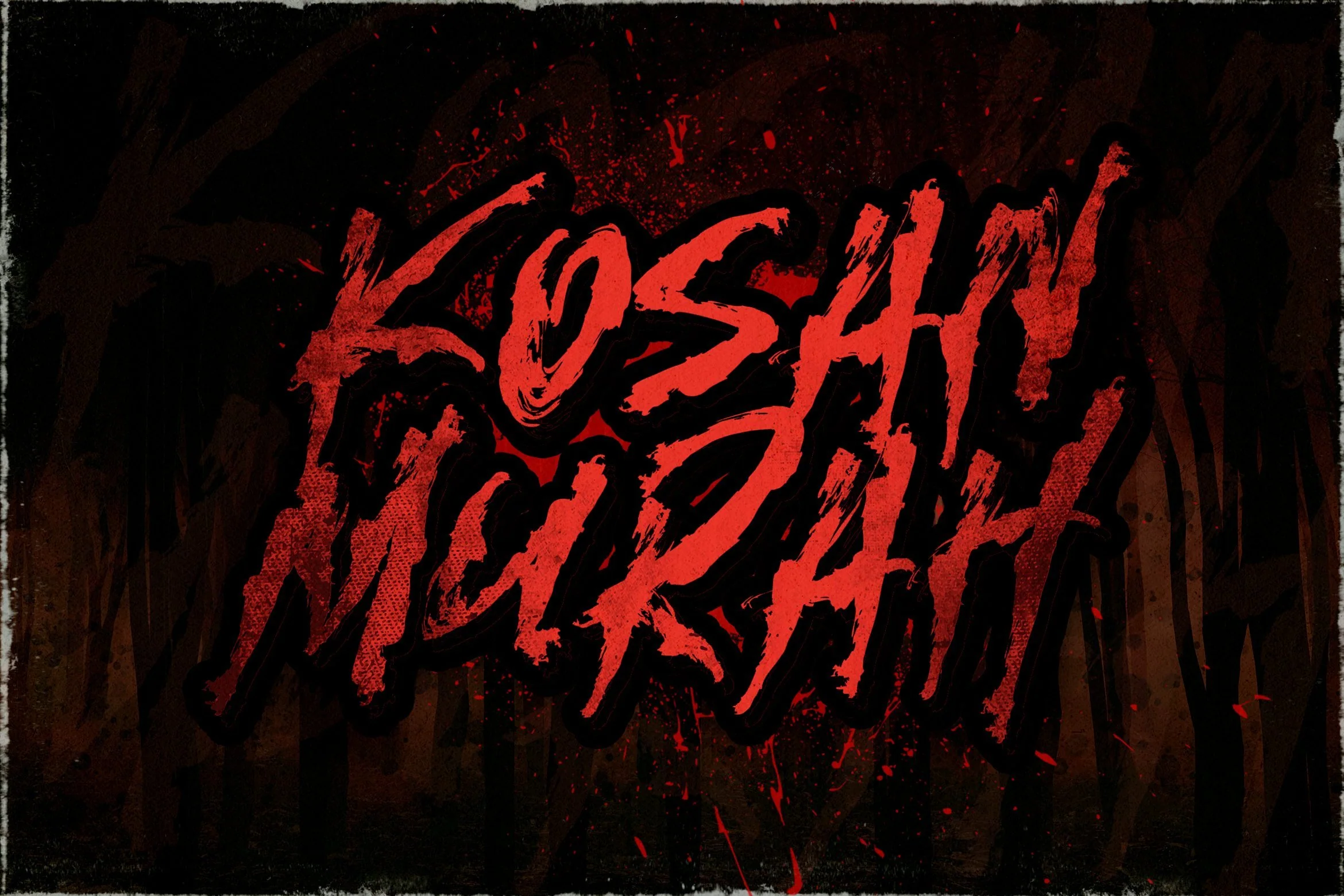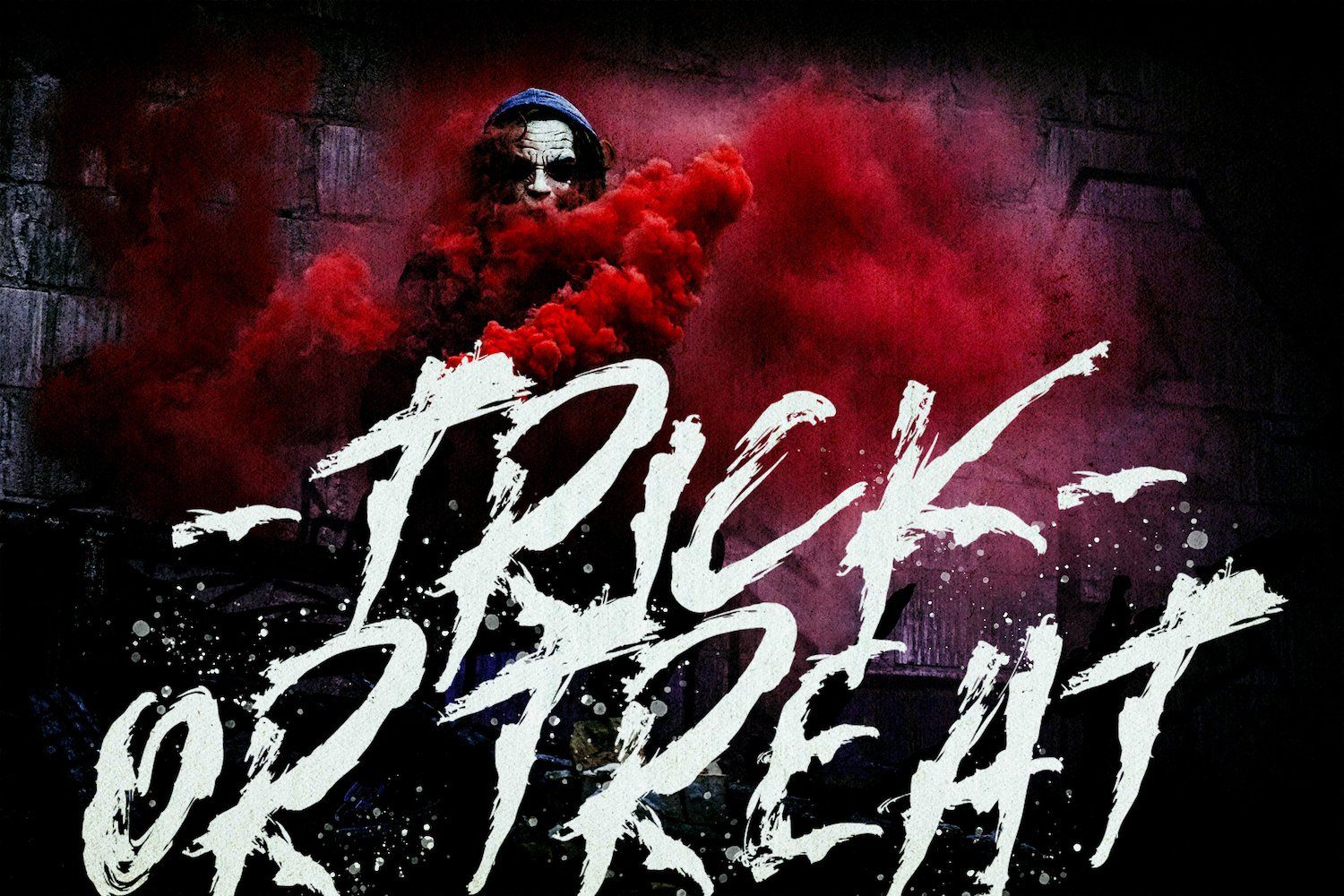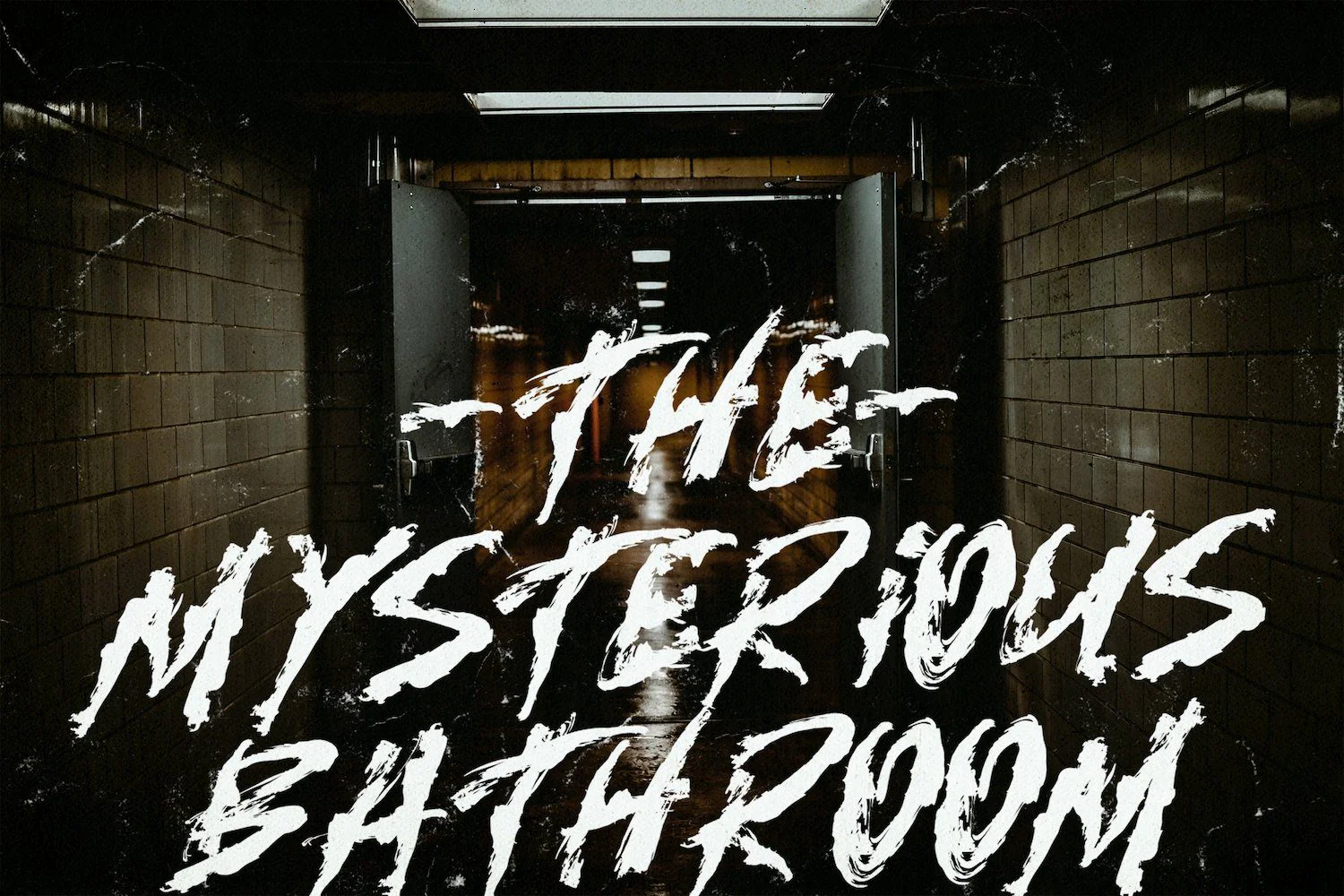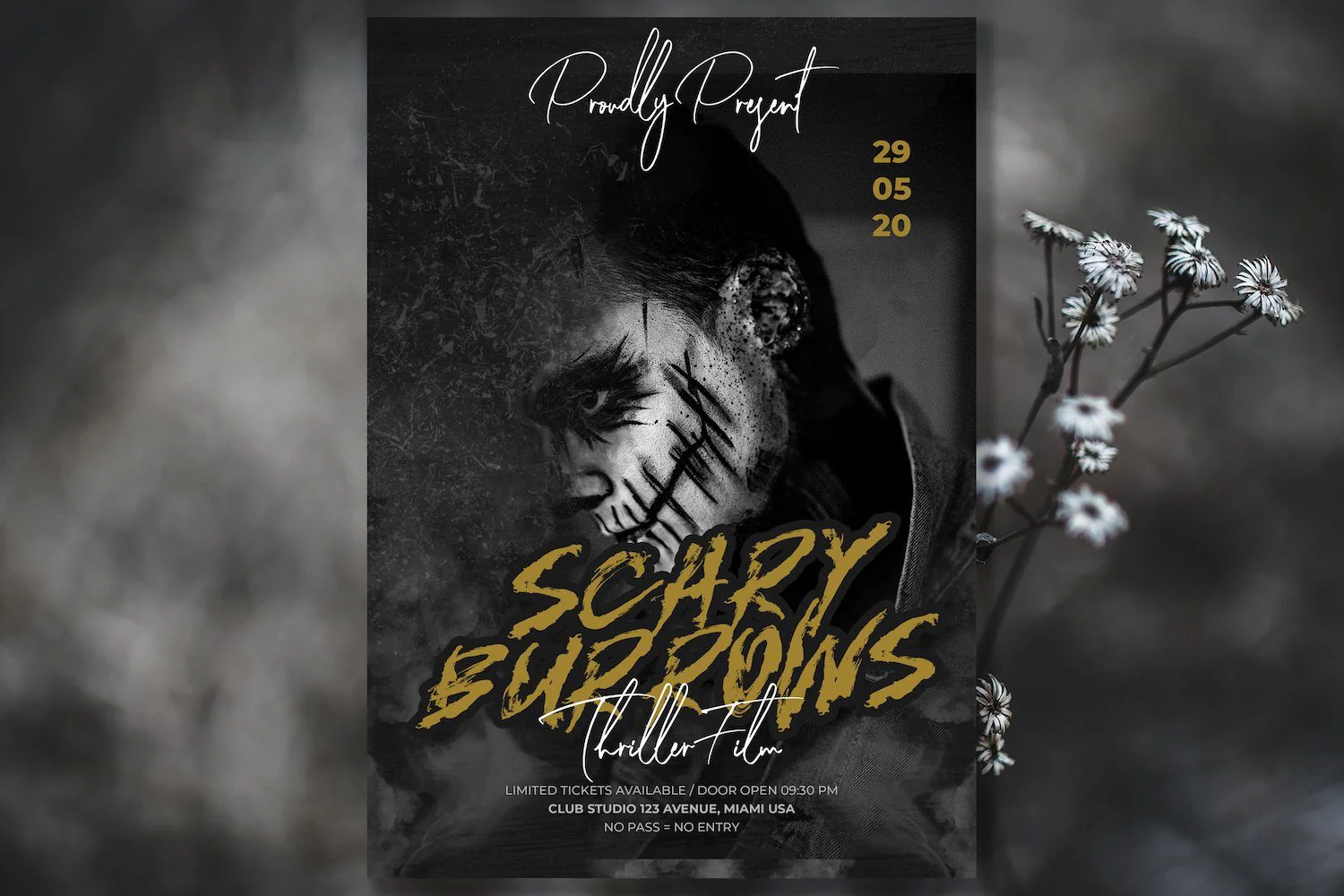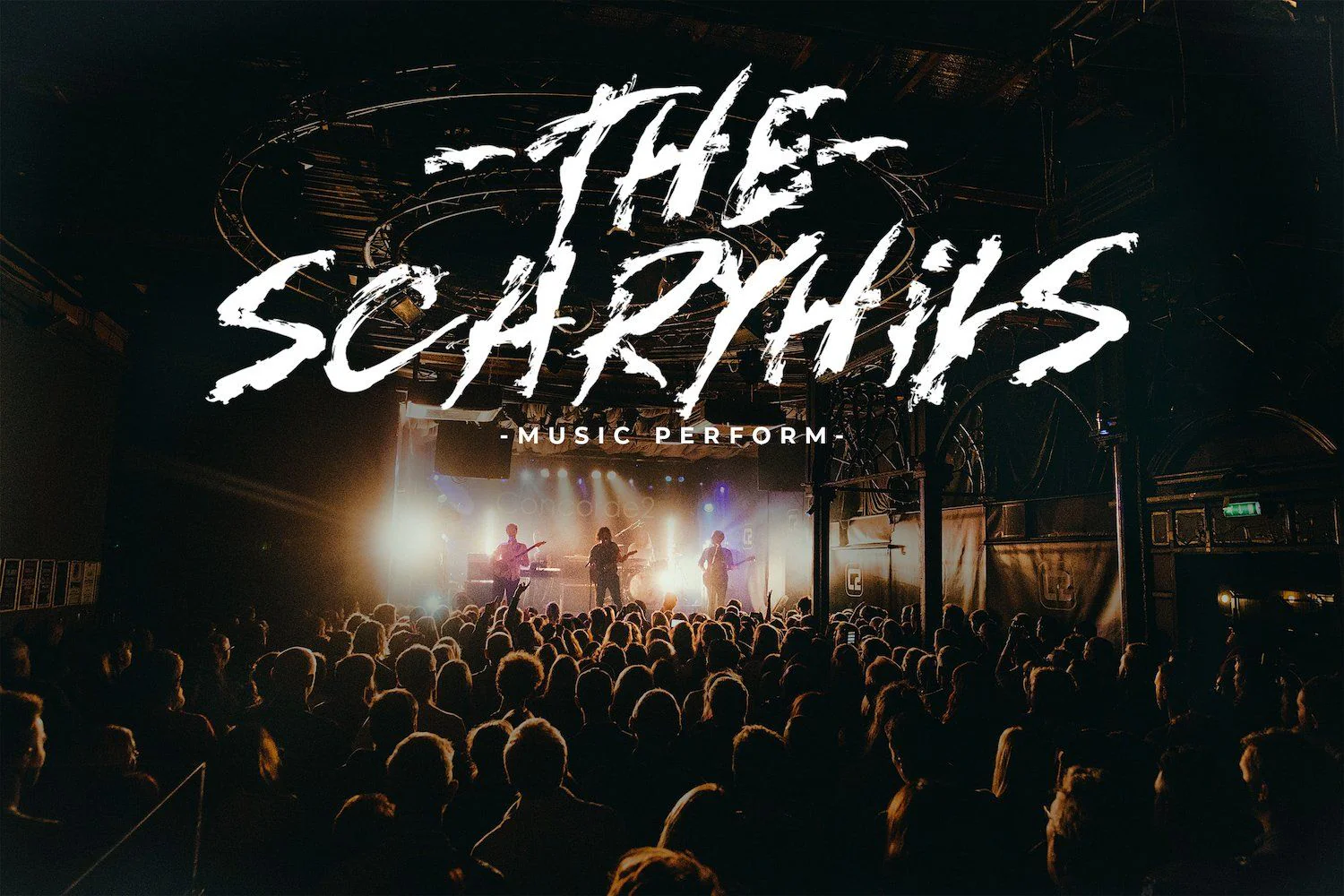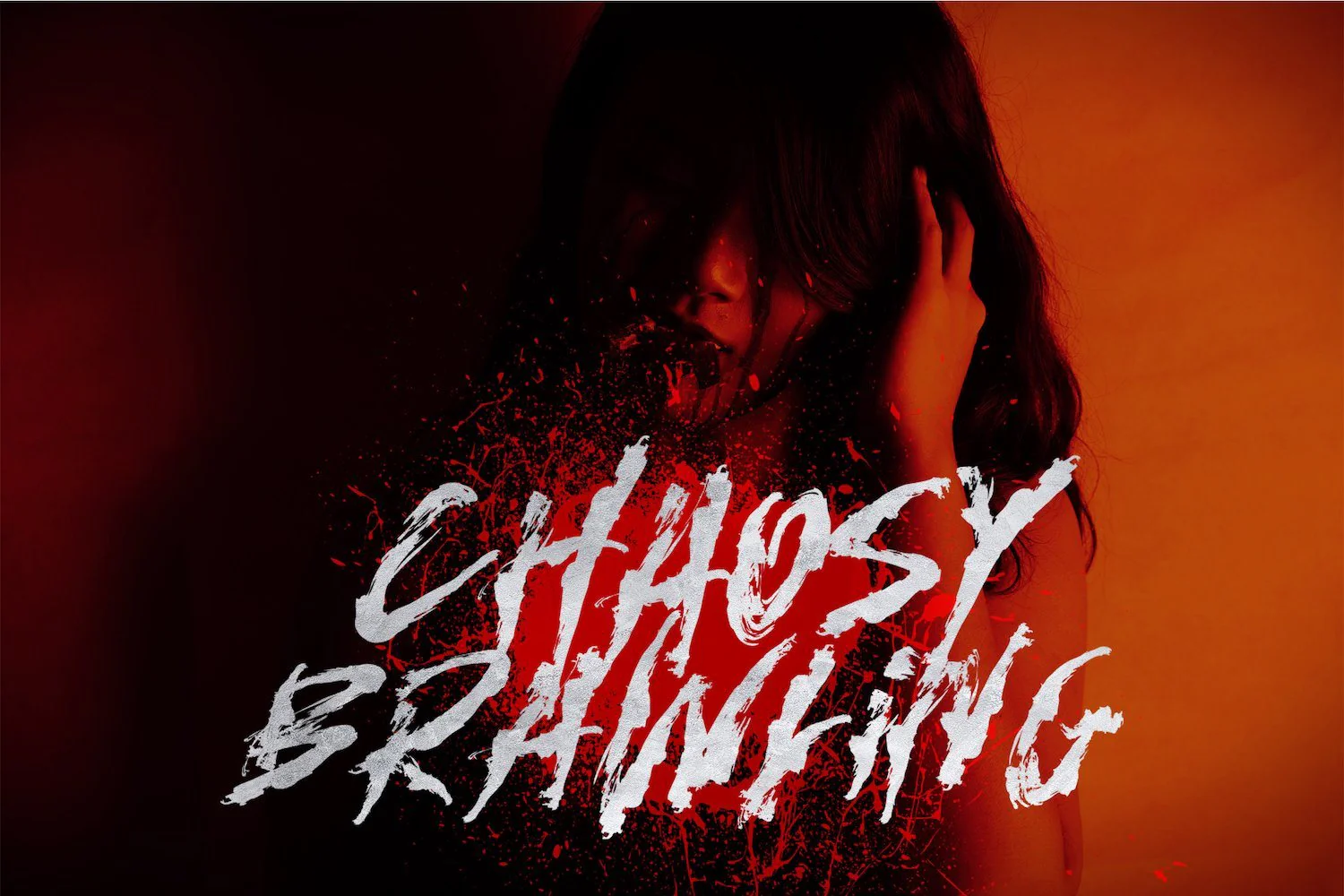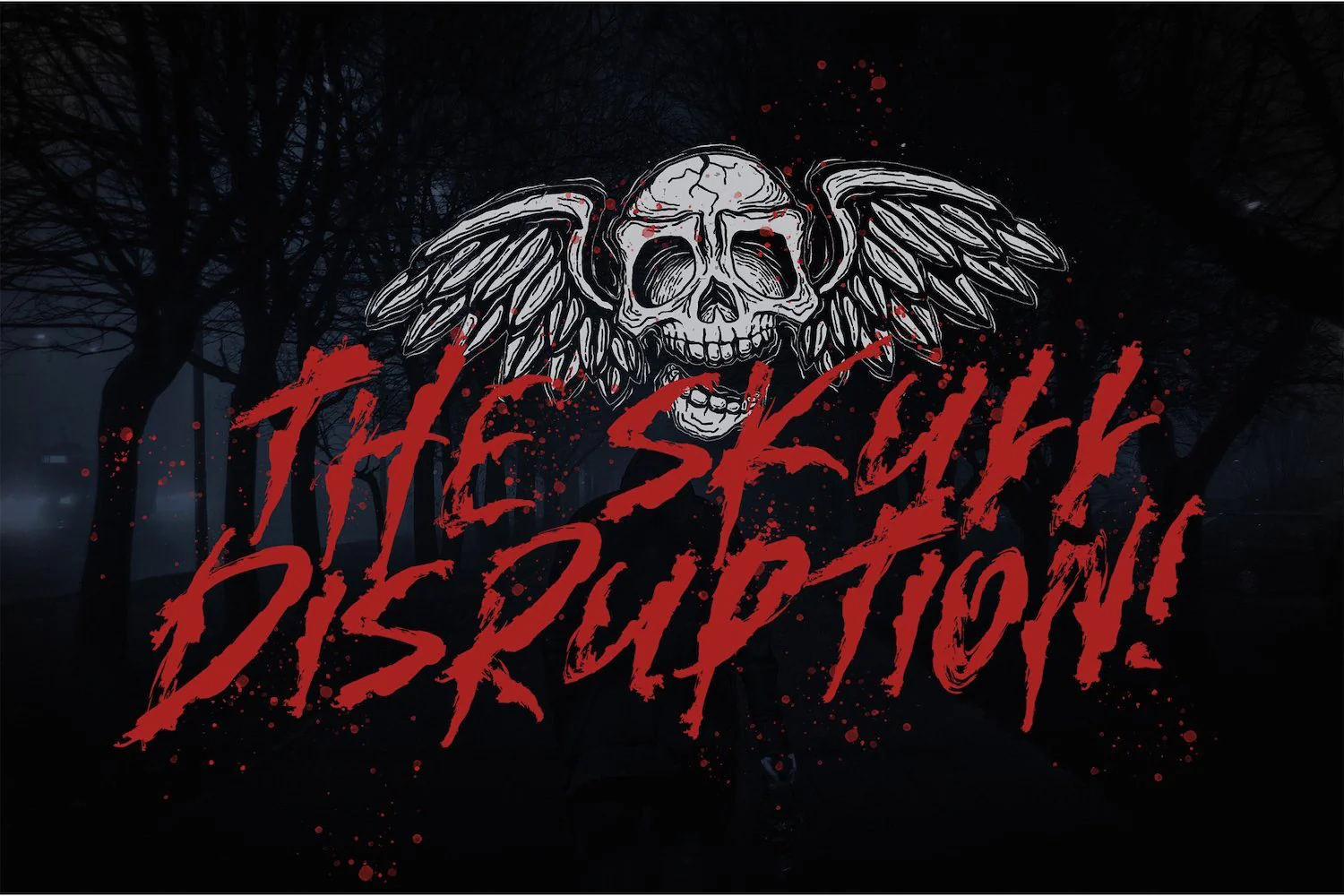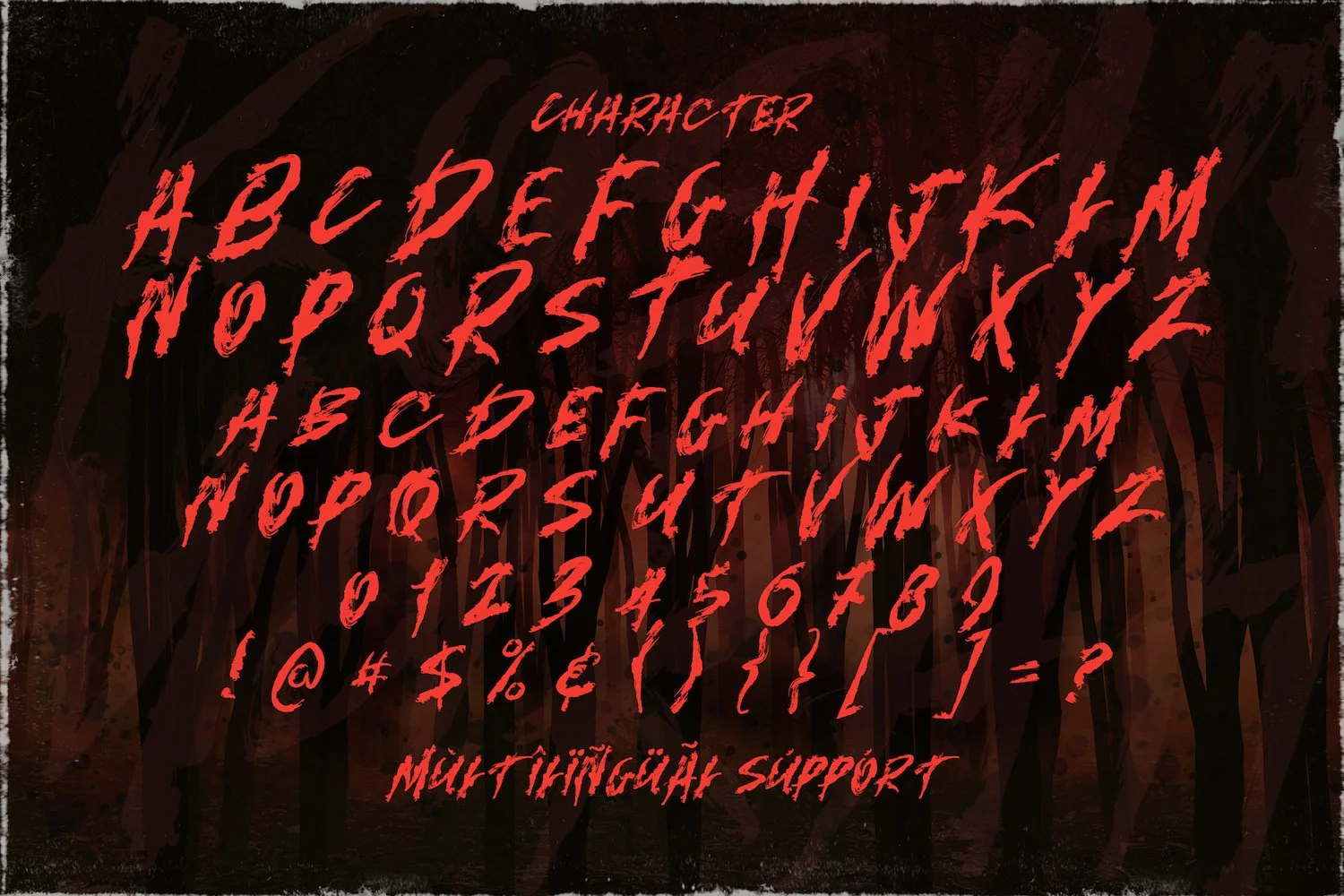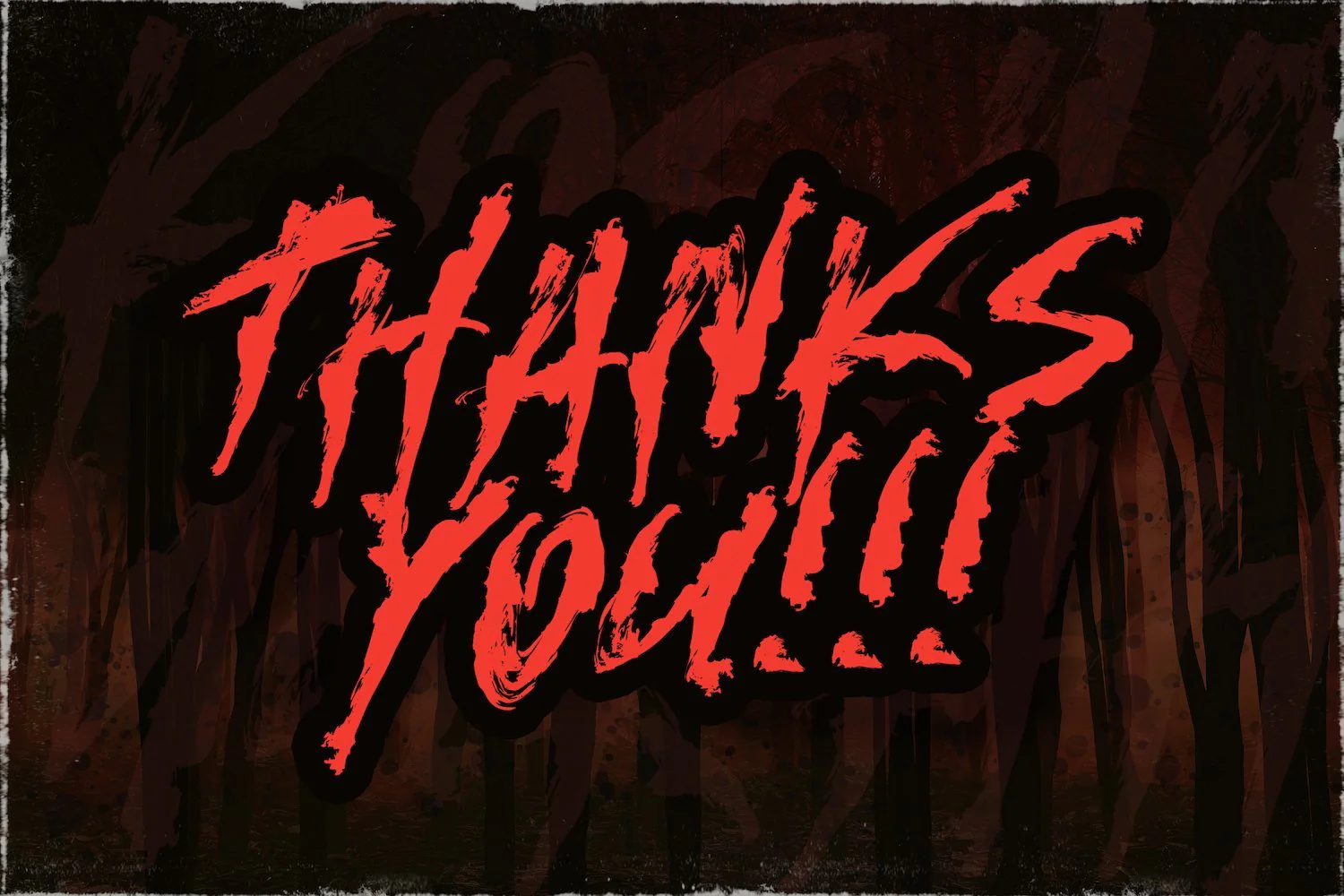
Kosan Murah! - Horror Font
Introducing Kosan Murah! - Horror Font
Kosan Murah! is display font with horror and scary style. Kosan Murah! has unique design taste that we combine with decorative horror style. The Kosan Murah! is perfect for your horror projects, such as: Movie Poster, Lettering on Cover Books, Album music cover, Logo Brand, and much more.
Introducing Kosan Murah! - Horror Font
Kosan Murah! is display font with horror and scary style. Kosan Murah! has unique design taste that we combine with decorative horror style. The Kosan Murah! is perfect for your horror projects, such as: Movie Poster, Lettering on Cover Books, Album music cover, Logo Brand, and much more.